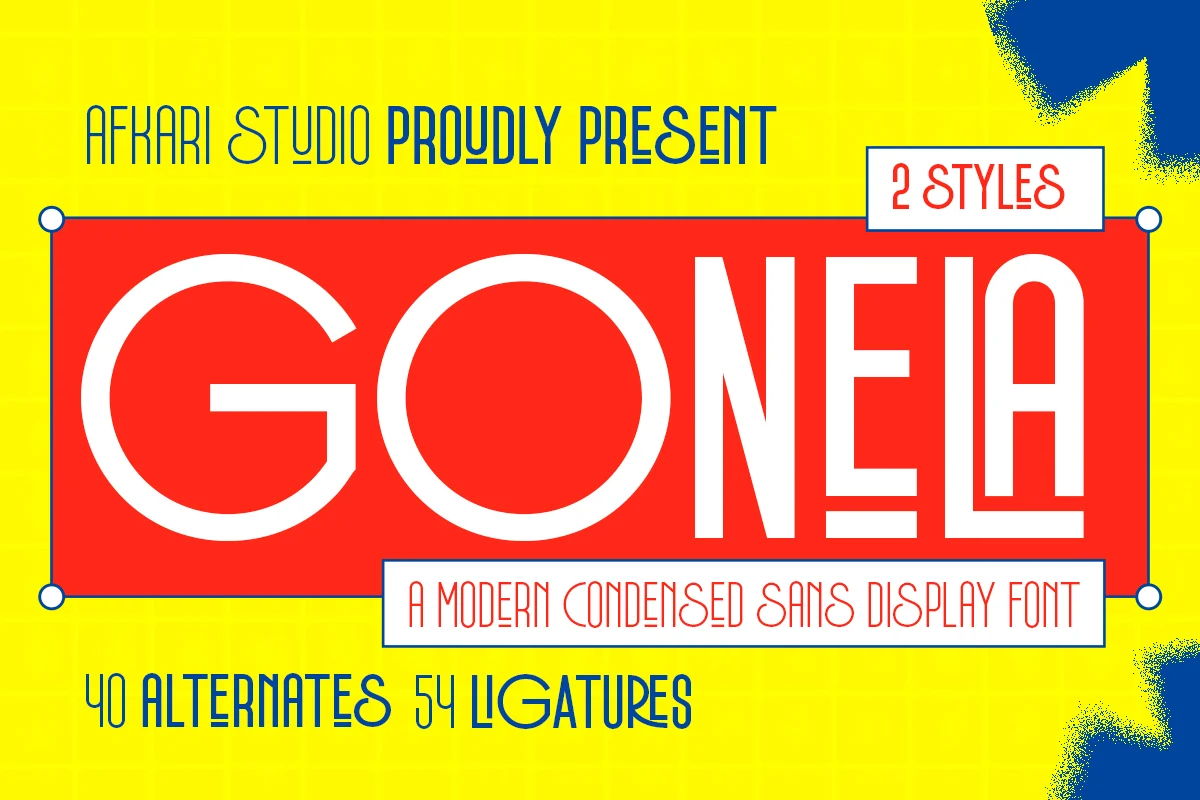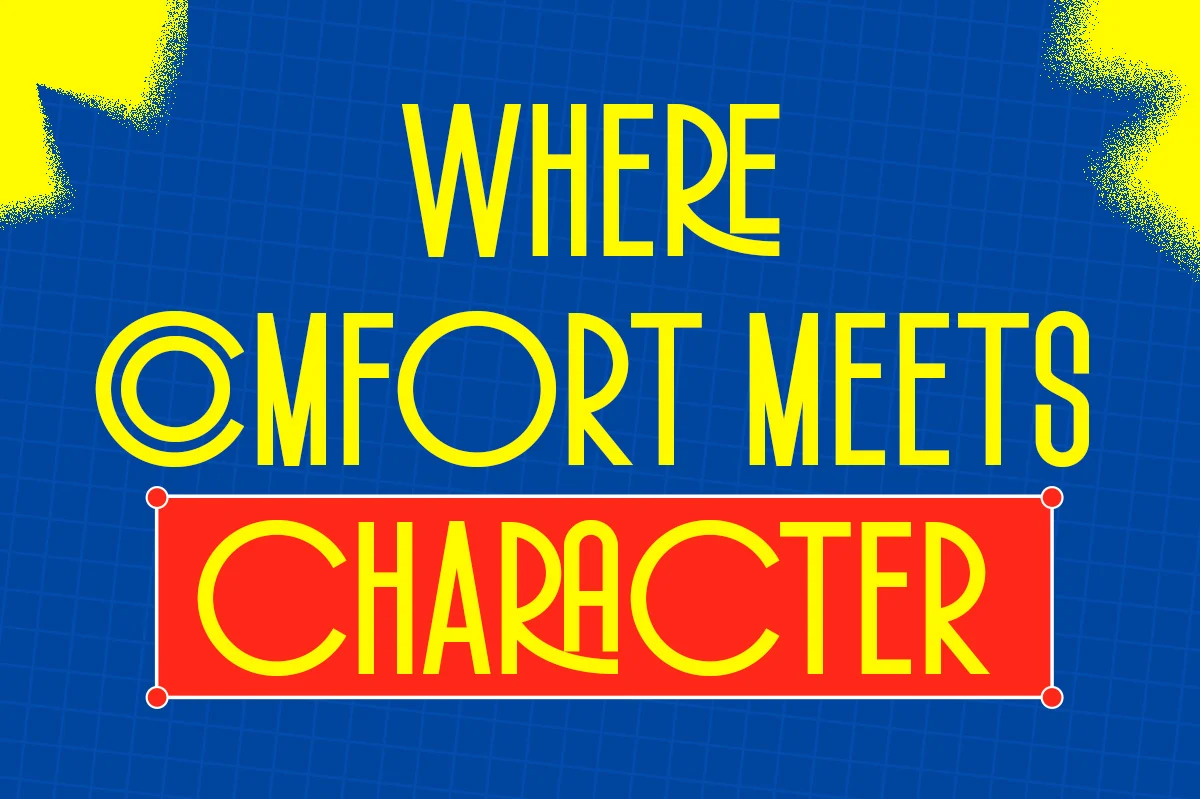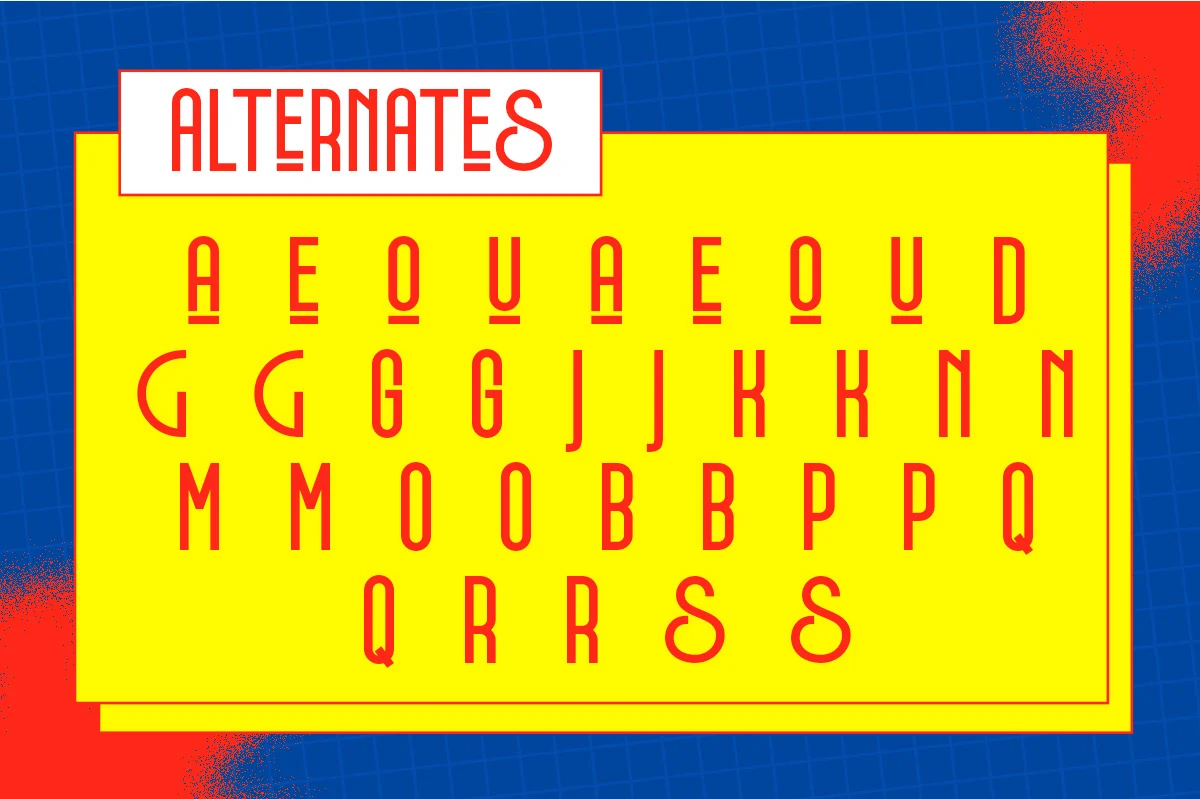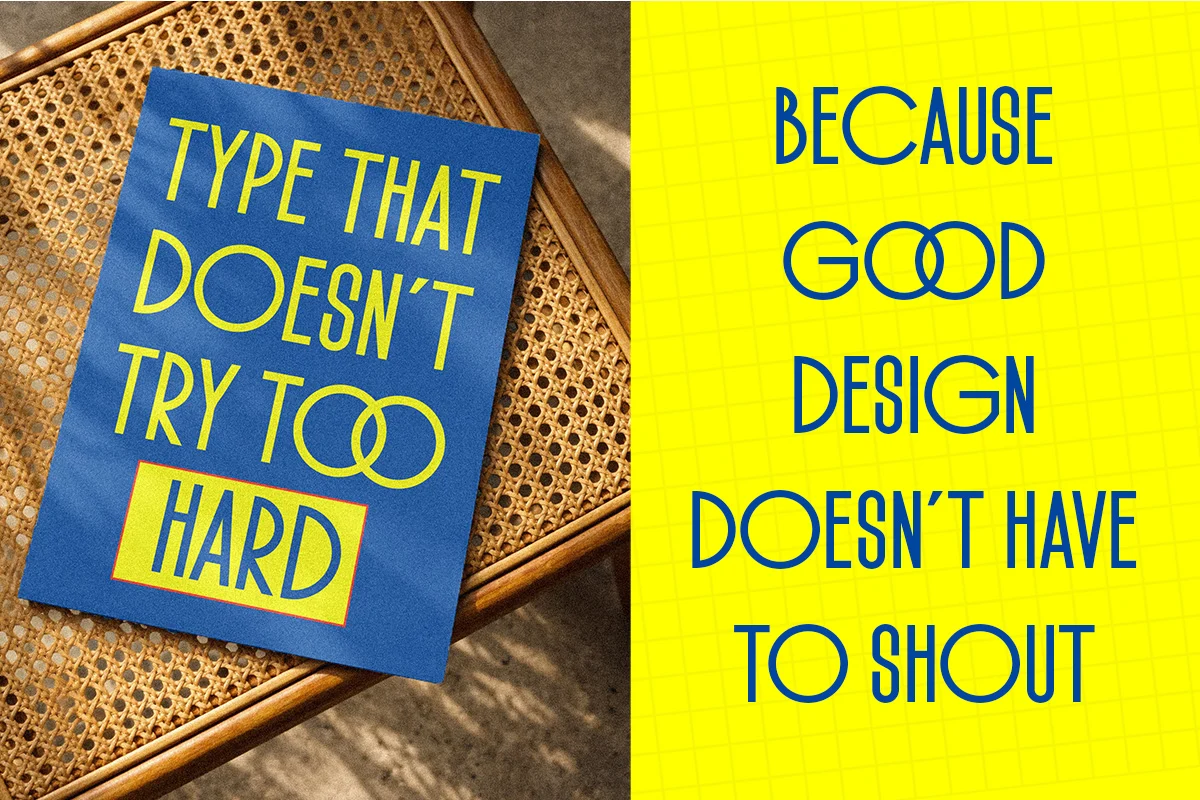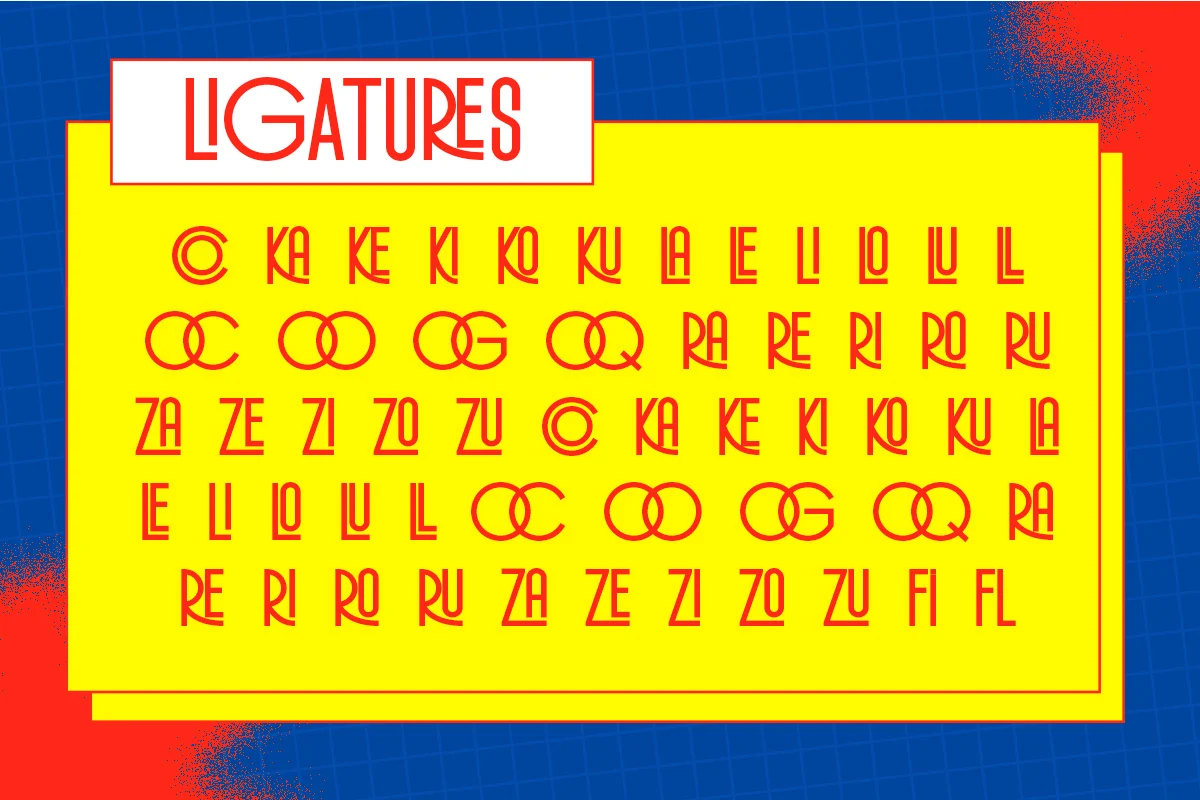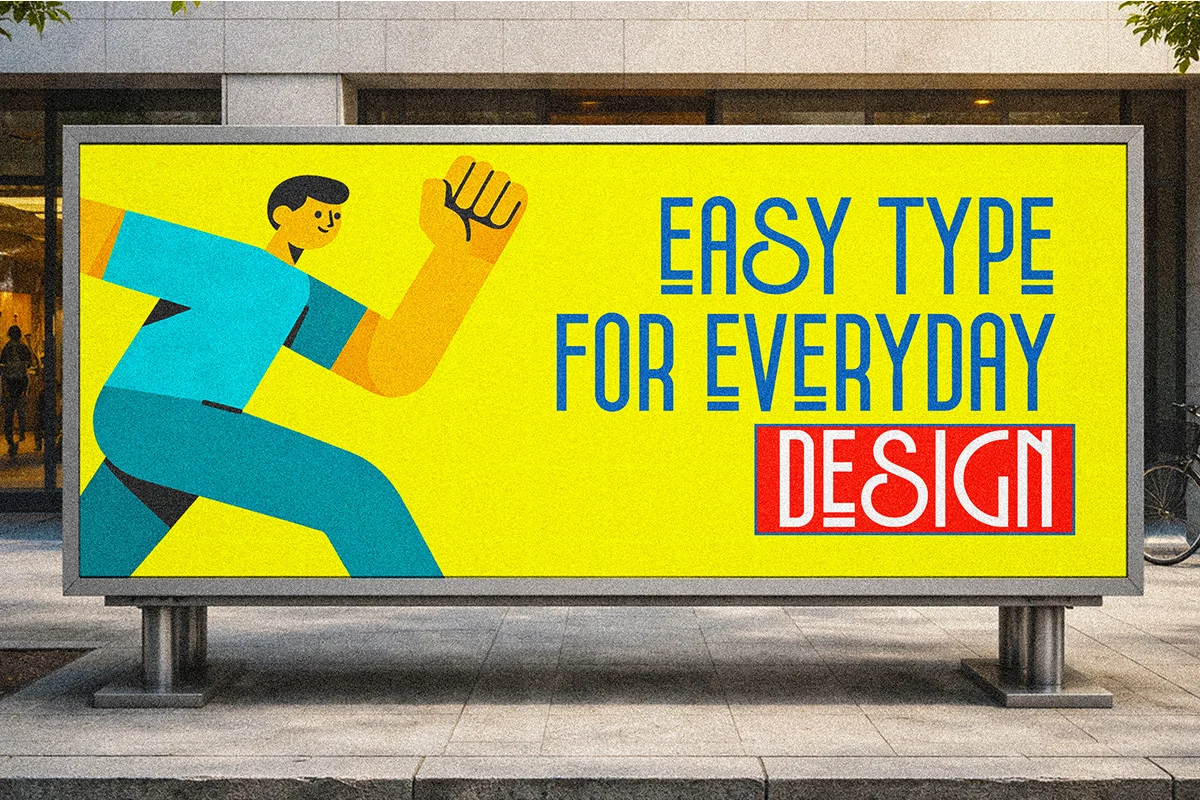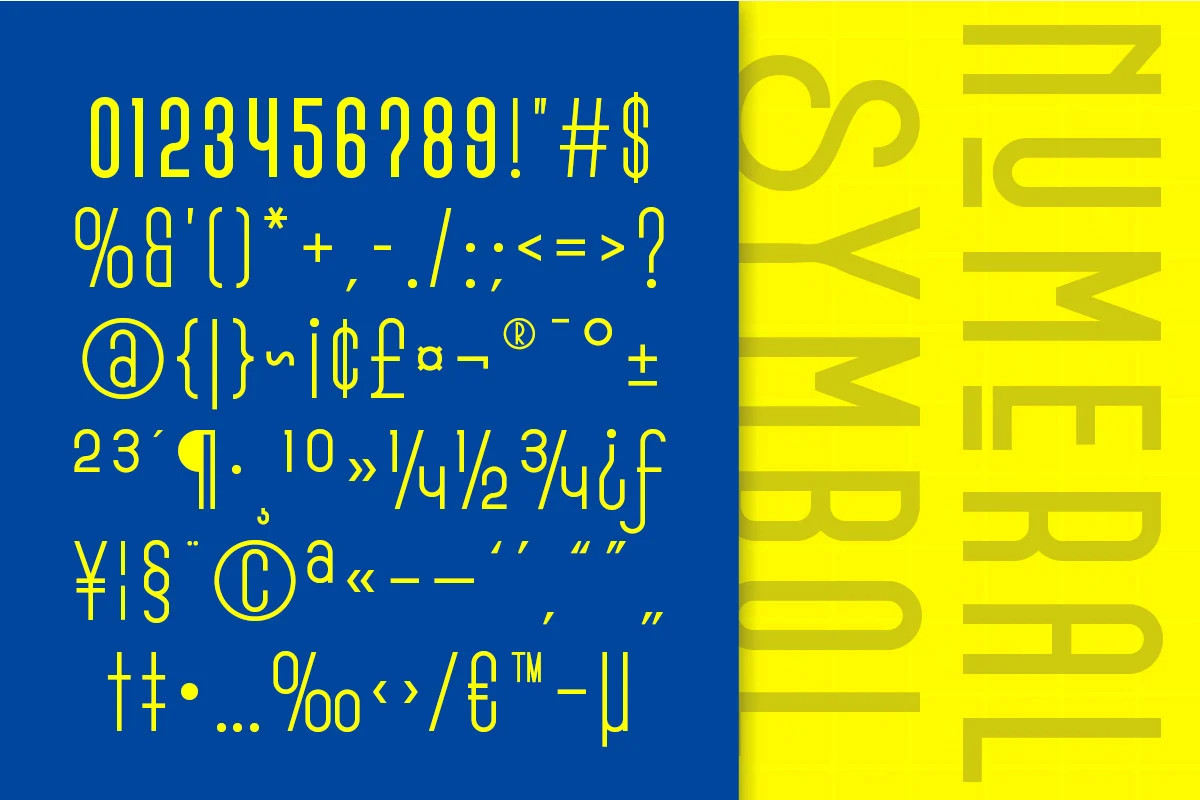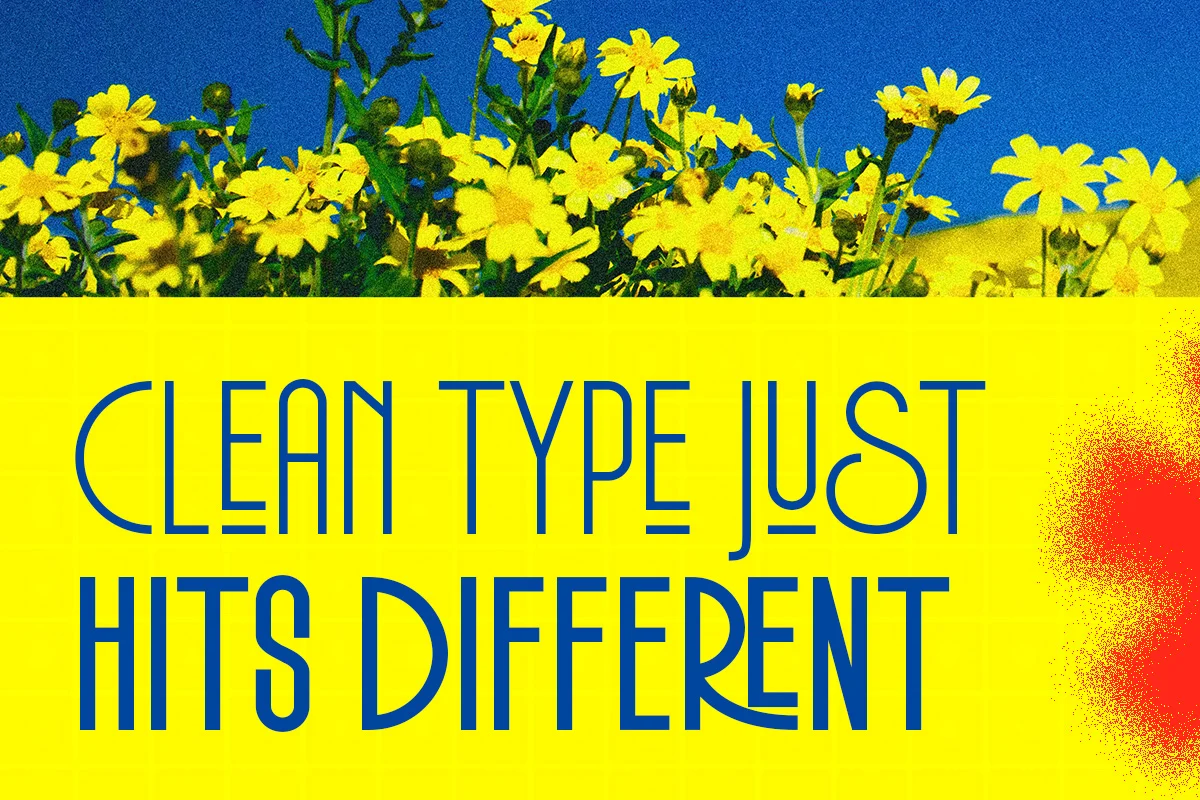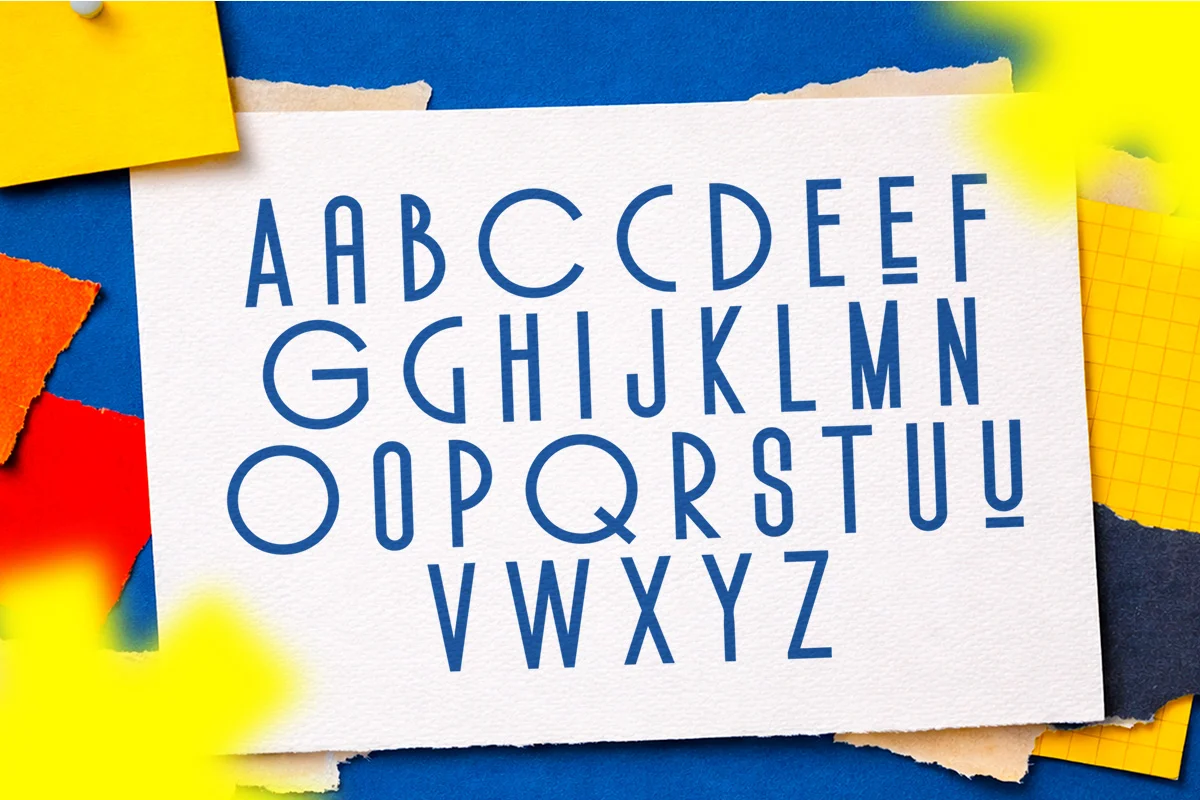
Gonela is a modern condensed sans display font designed to deliver bold clarity, sleek structure, and contemporary visual impact. Built with tall proportions and narrow spacing, this typeface maximizes space efficiency while maintaining strong readability. Its clean lines and balanced geometry make Gonela a powerful choice for headlines, branding, and high-impact typography.
Crafted for designers who need a sharp and professional condensed font, Gonela works perfectly for logo design, posters, magazine titles, sports graphics, streetwear branding, packaging, advertising campaigns, and social media content. The condensed structure allows you to fit more text into tight layouts without sacrificing style or legibility.
Features;
- Uppercase, Lowercase, Number, and Punctuation
- Special Alternates and ligatures
If you are looking for a clean, strong, and space-saving display font, Gonela is the perfect solution to elevate your modern design projects with precision and style.